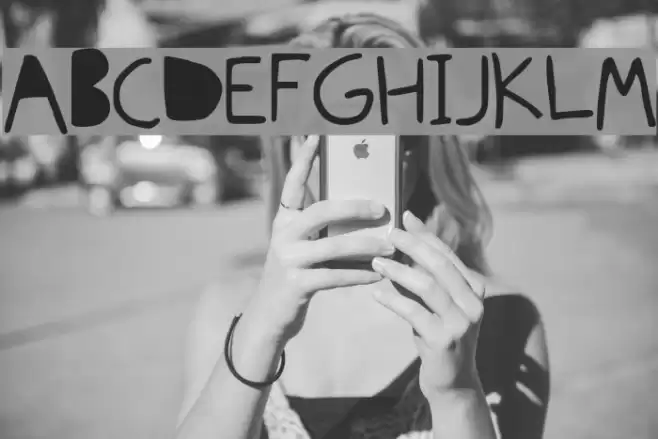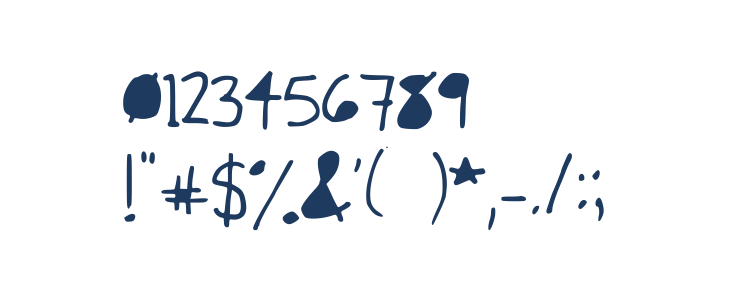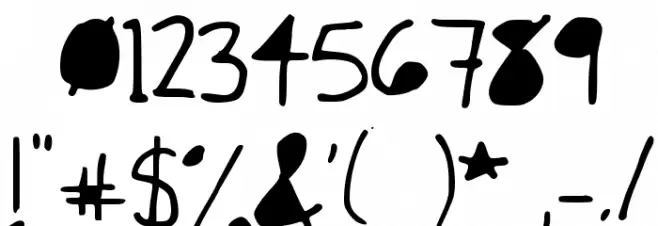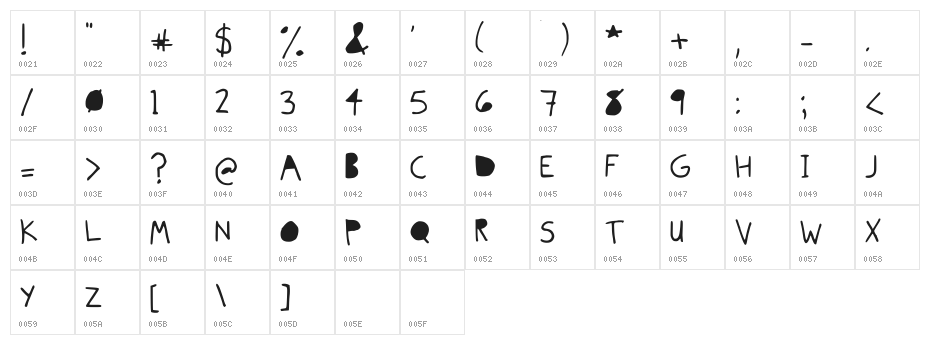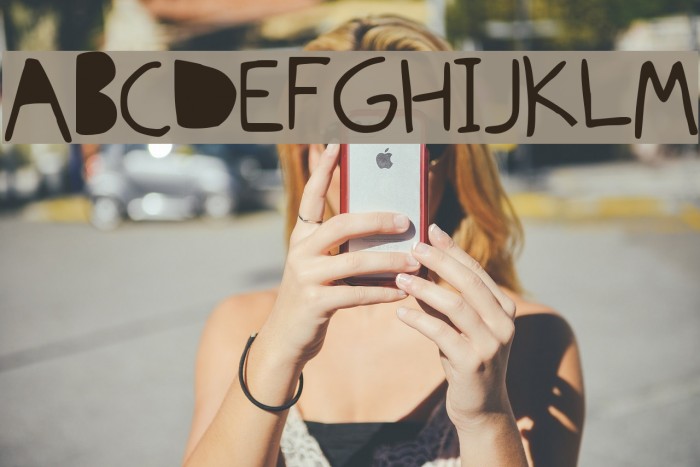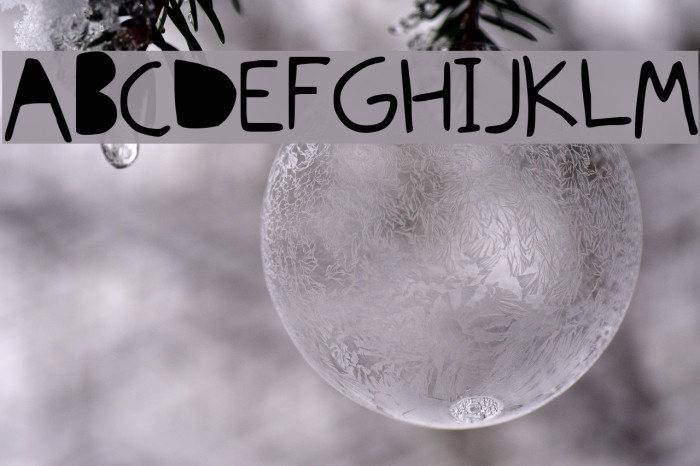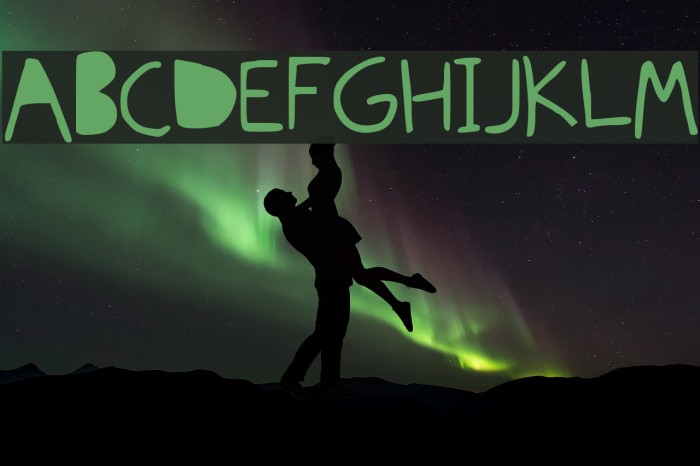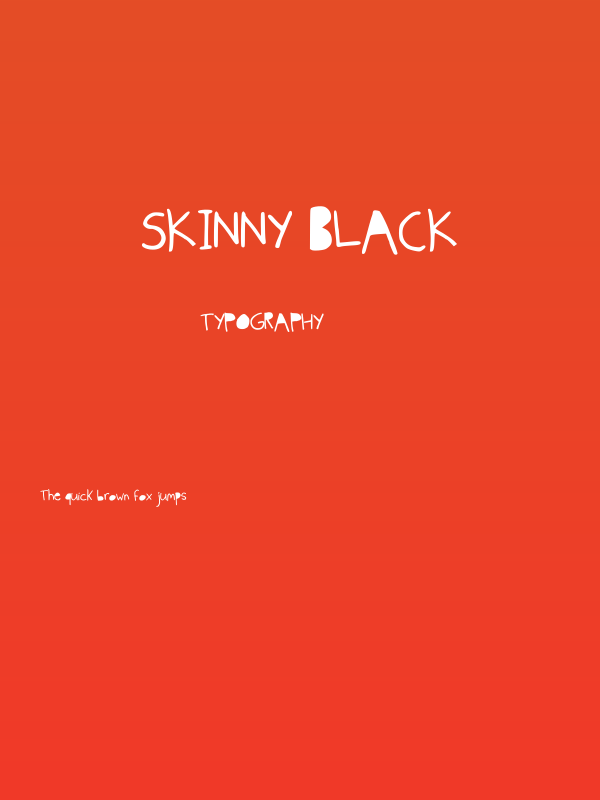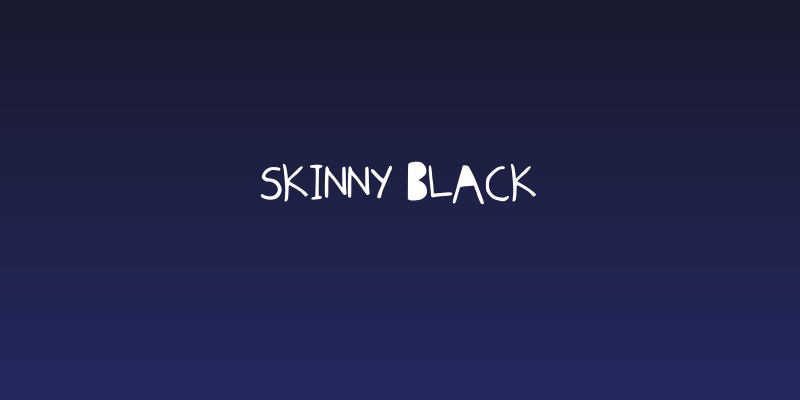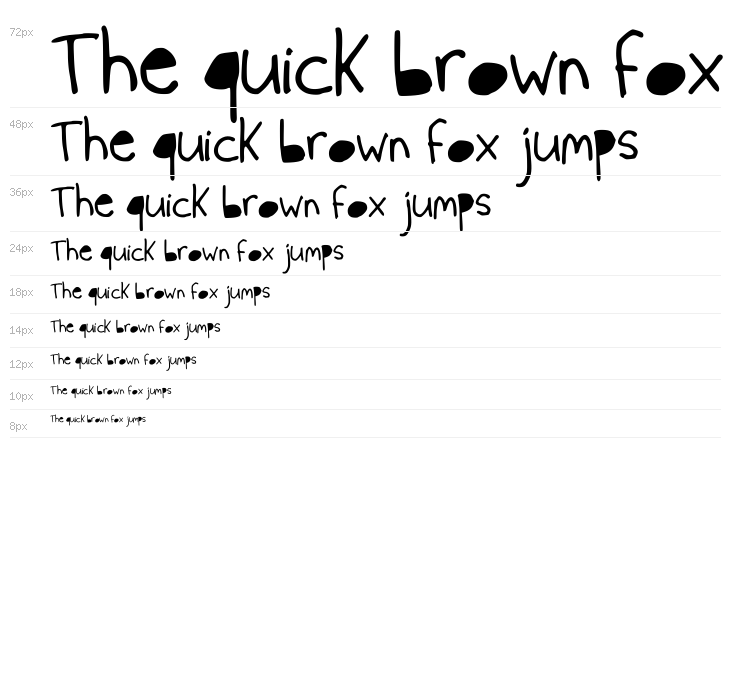
Skinny Black Font
Skinny Black Description
This font features a playful and informal style with a hand-drawn appearance. The characters are bold and slightly irregular, giving them a whimsical and casual feel. The uppercase letters are tall and narrow, while the lowercase letters maintain a consistent height with rounded edges. Numbers are bold and easily distinguishable, and the special characters retain the same playful aesthetic. The overall design is approachable and friendly, making it suitable for creative and informal projects.
A playful, hand-drawn font with bold, irregular characters.
- Proposed Projects: Ideal for children's books, greeting cards, playful branding, and casual invitations.
- Category: Handwritten
- Overall Style: Casual